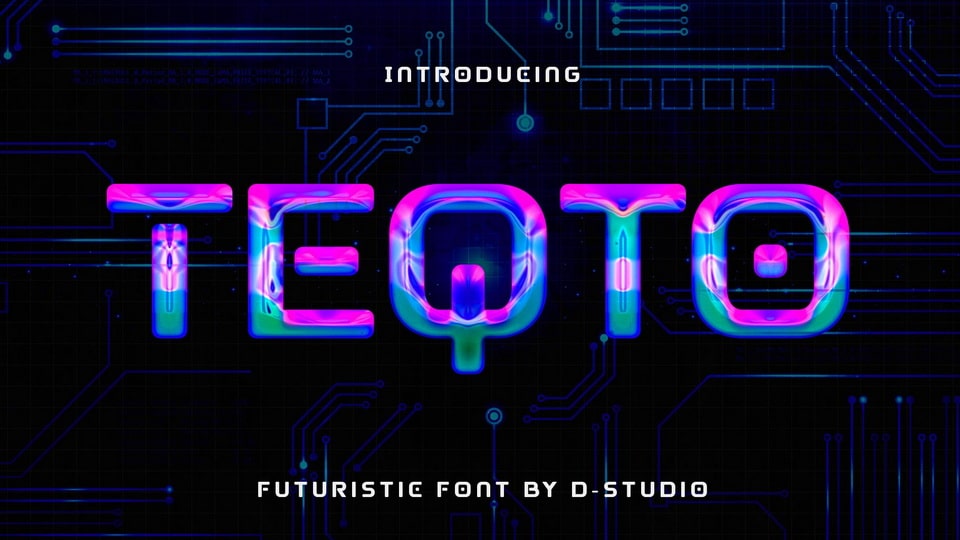
Feb 4, 2025DisplayTeqto Font Teqto is a rounded futuristic font, offering all the basic styles you will need for a successful project. This modern and bold font can easily apply to your favorite designs that require a sci-fi touch. Font DetailsDesigned by: Drizy FontWebsiteLicense: Free for personal use Download Teqto FontFile size: 6.66 KBCreated: February 16, 2025Updated: February 16, 2025 Download Explore similar fonts Bodygo Font Kalebrion Font Spacer Font Dreamscape Font Blade Runner Movie Font Back to the Future 2002 Font # Bold# Futuristic# Geometric# Technology More fonts by Drizy FontDesgard FontMilksea FontMeira FontCazon FontRevob FontBalladon FontTilges FontBaroka Font